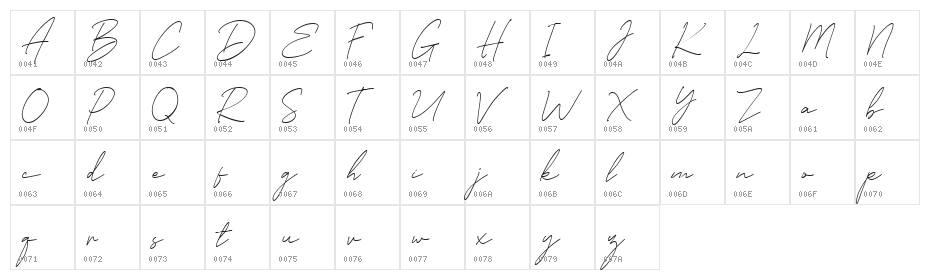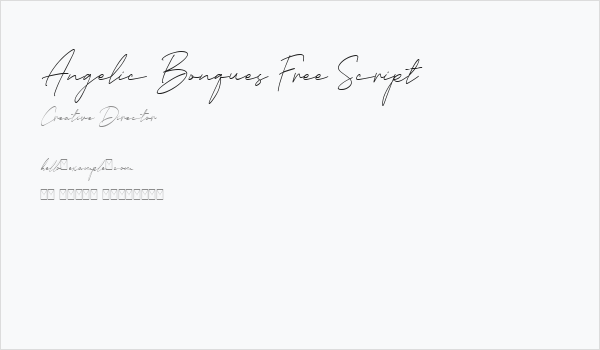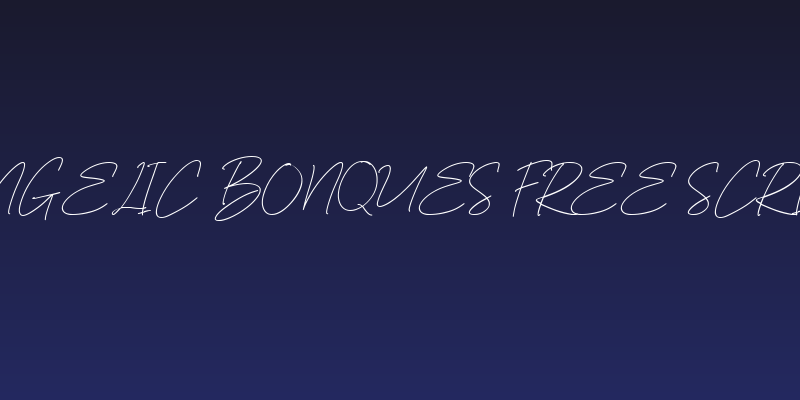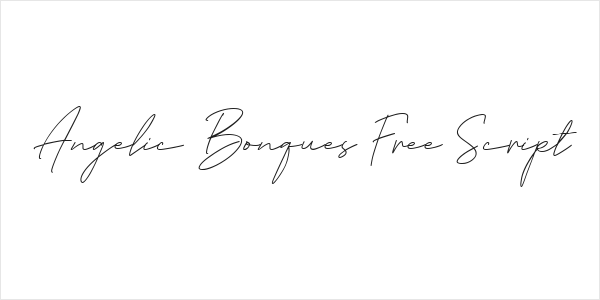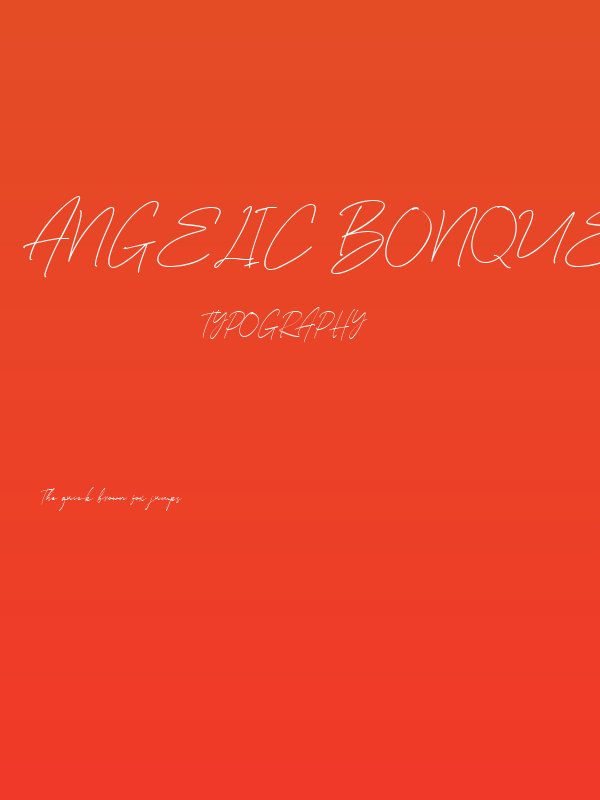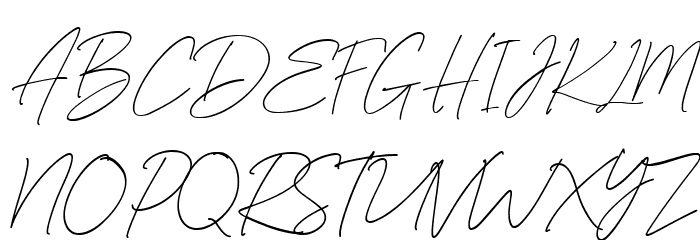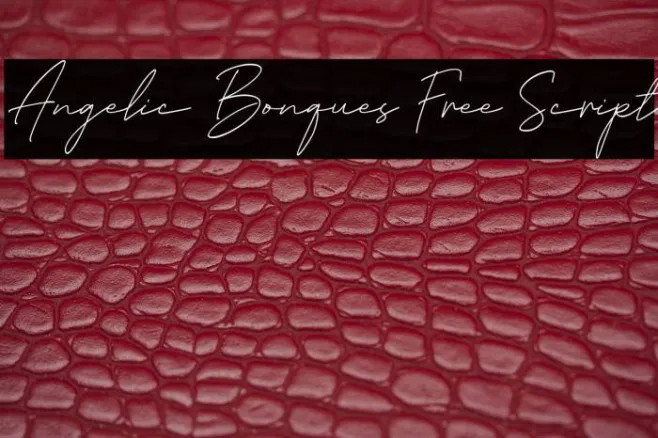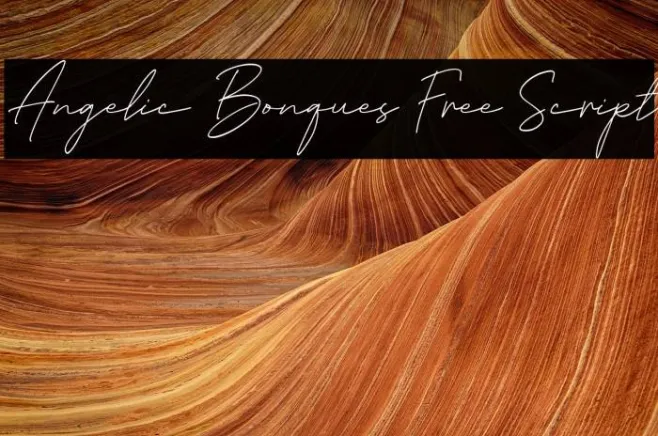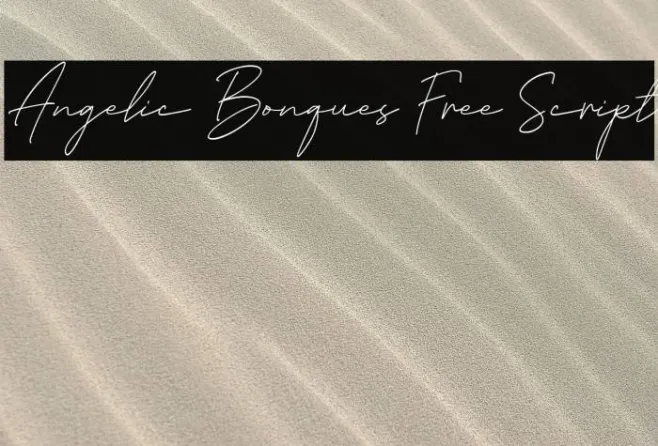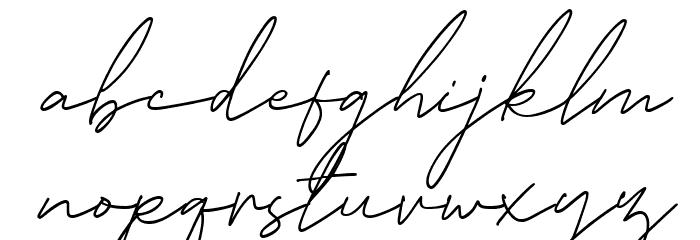
Angelic Bonques Free Script Font
Angelic Bonques Free Script Description
This font exudes elegance and fluidity, characterized by its cursive, handwritten style. The letters are connected with smooth, flowing strokes, giving it a natural and organic feel. The uppercase letters are slightly larger and more pronounced, while the lowercase letters maintain a consistent flow, enhancing readability. The font's thin lines and delicate curves create a sense of sophistication and grace, making it ideal for projects that require a personal touch. Its overall appearance is both modern and timeless, suitable for a variety of design applications.
| Overall Style | Elegant, Modern |
| Proposed Projects | Ideal for wedding invitations, greeting cards, personal branding, and elegant logos. |